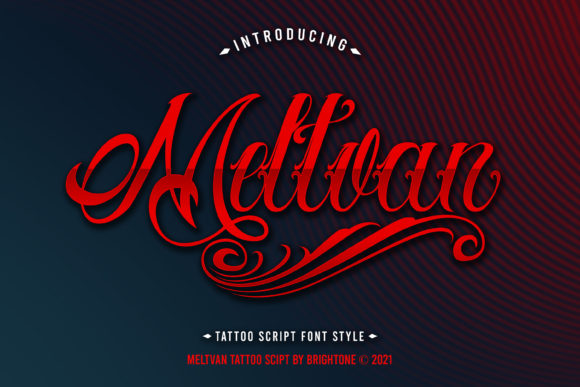
Immerse yourself in the enchanting world of Meltvan, an exquisitely handcrafted script font that will captivate your imagination and ignite your creativity. Designed with meticulous precision, every stroke and curve of Meltvan embodies elegance and grace, making it the perfect choice for discerning individuals seeking to make a bold statement.
Indulge in the captivating allure of Meltvan, a font that evokes the ethereal beauty of handwritten artistry, effortlessly adding a touch of sophistication to any project. Let your words dance with an unmatched fluidity and charm, leaving an unforgettable mark on the hearts and minds of your audience.
With Meltvan, unleash your inner artist and transform ordinary designs into extraordinary masterpieces. Its versatility knows no bounds, effortlessly complementing a myriad of styles, from delicate invitations to captivating logos. Each letterform is a work of art, meticulously crafted to convey emotions and captivate attention.
Embrace the transformative power of Meltvan, a font that will elevate your creations to new heights, leaving a lasting impression that lingers long after the final stroke. Experience the exquisite beauty and unparalleled charm of Meltvan today, and let your imagination soar to new horizons of creativity.